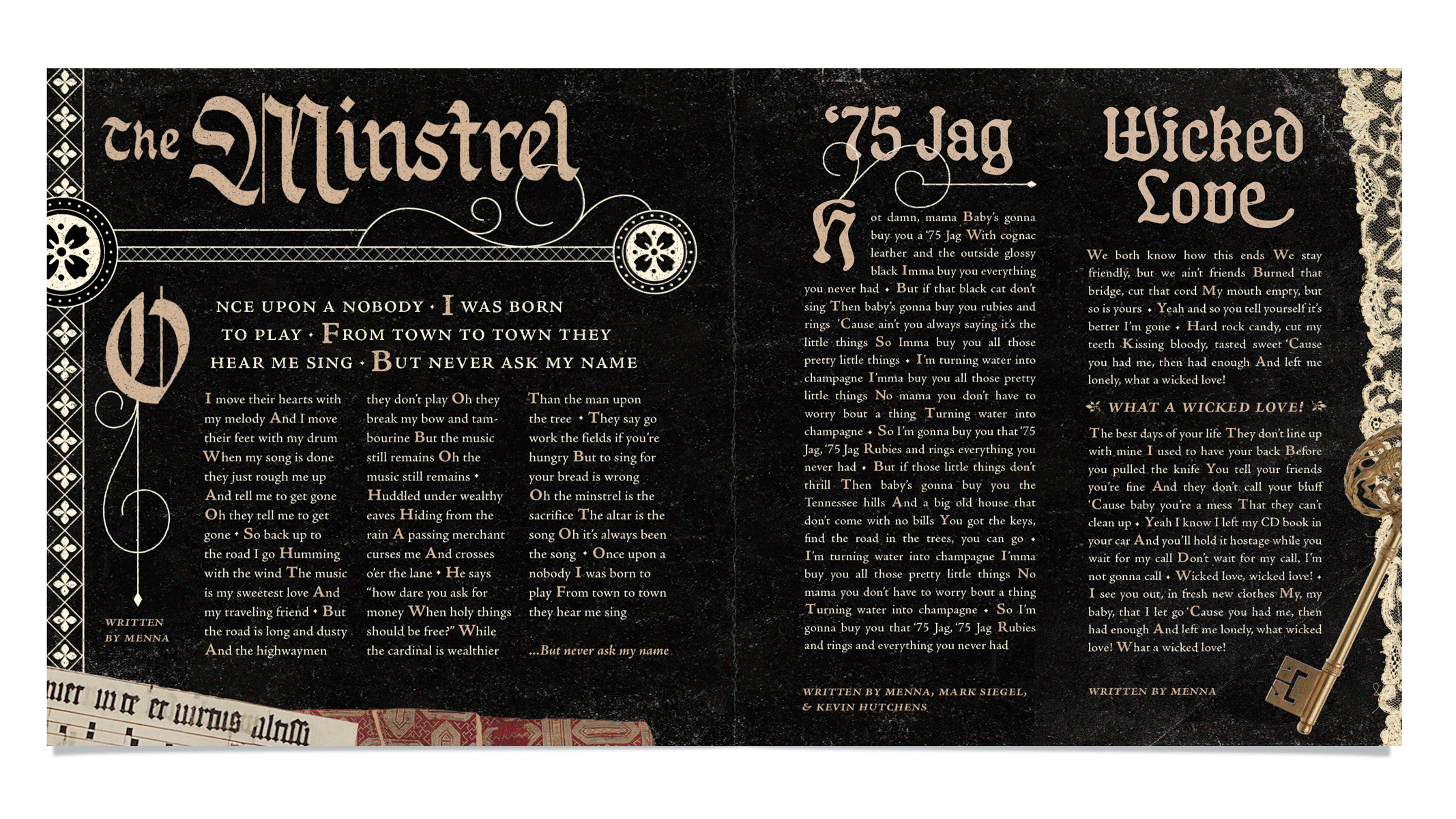
We were so thrilled to work with Menna to design her first full-length pop album. She’d already established a strong medieval theme in the music and photography when we came in, and we were excited to play with how those motifs could expand into the cd graphics.
As we explored ideas and inspirations, such as medieval manuscripts and gothic lettering styles, we stumbled onto a vibe we loved that felt totally, uniquely Menna—a collaged look that combined 3D and flat objects, while feeling almost like Menna’s personal diary…or “burn book” if you will.
We spent days pouring through images of real medieval objects and finding just the right fabrics and trinkets to sprinkle throughout the booklet. In combination with hand-drawn lettering on the cover, booklet headlines set in Schmaltzy by Matthijs Herzberg, and body copy in Jenson, the full effect feels like a very special blend of old and new, just like Menna herself.